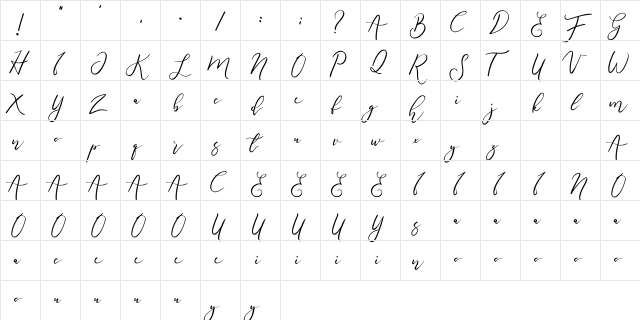
Honabite Regular
Design Context for Honabite Typeface
Honabite is a composed and adaptable typeface that performs quietly and consistently across a wide range of design contexts.